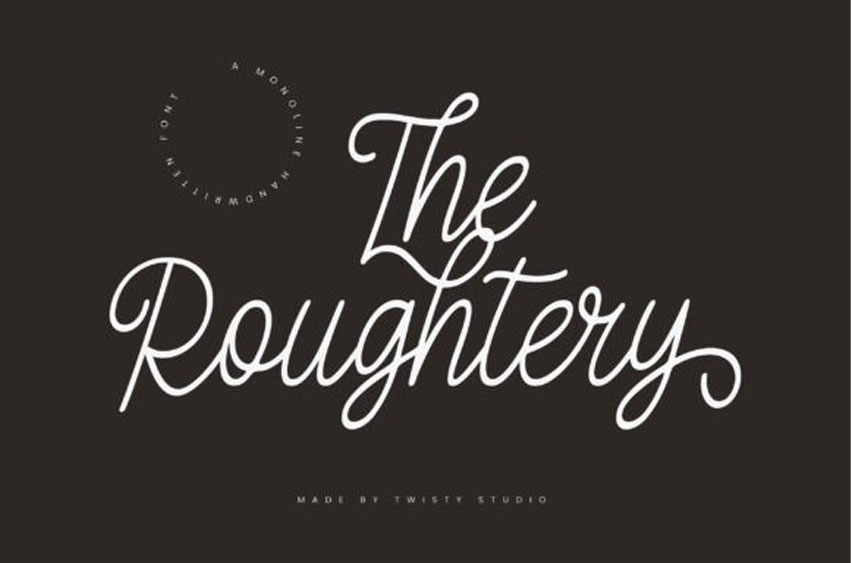
The Roughtery Font is a smooth and stylish monoline handwritten font that captures the charm of casual penmanship with a modern twist. With flowing strokes and elegant curves, this typeface brings warmth, personality, and a sense of authenticity to any design.
Perfectly suited for branding, logos, social media posts, wedding stationery, and handwritten quotes, The Roughtery is your go-to for a look that’s both refined and effortless.